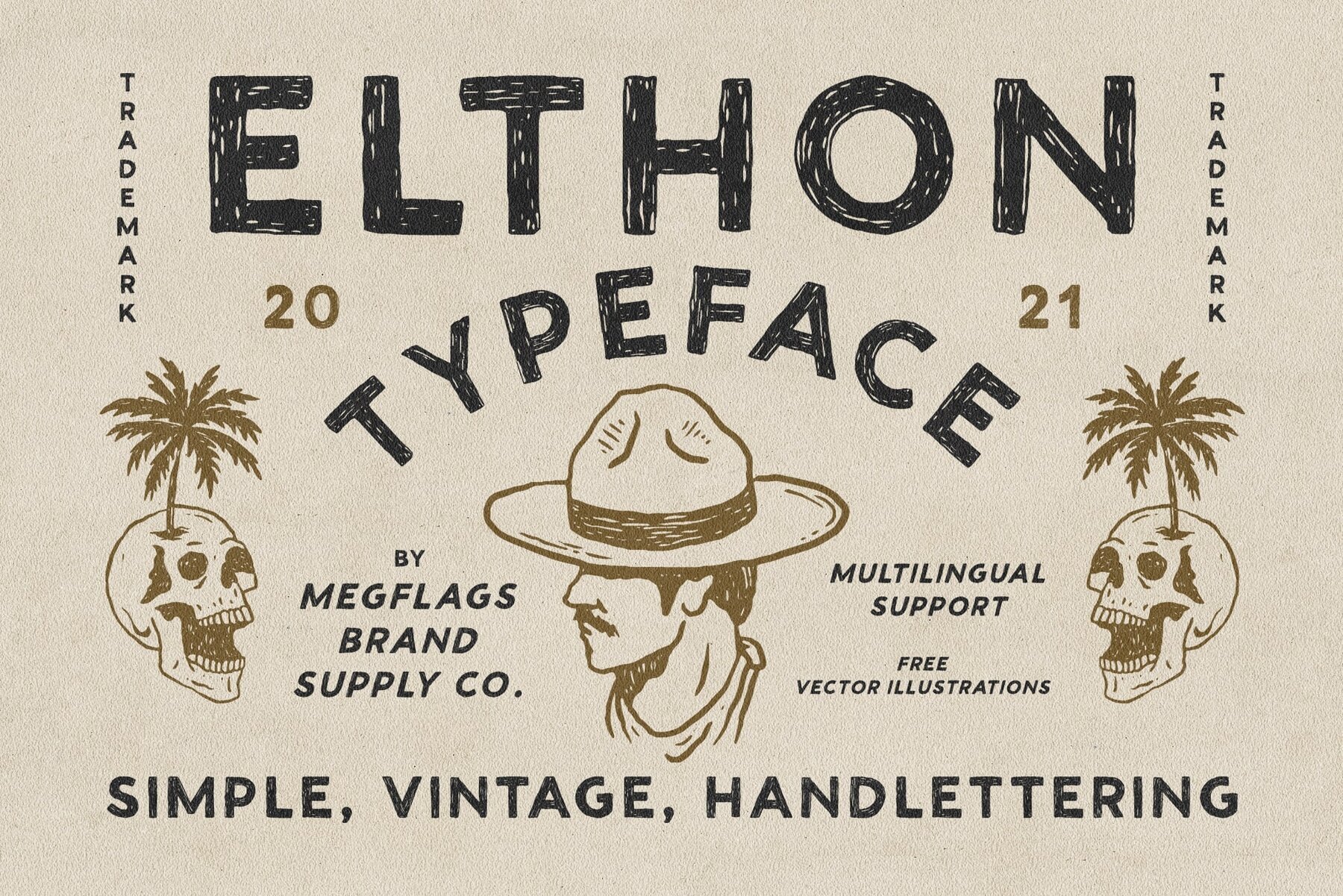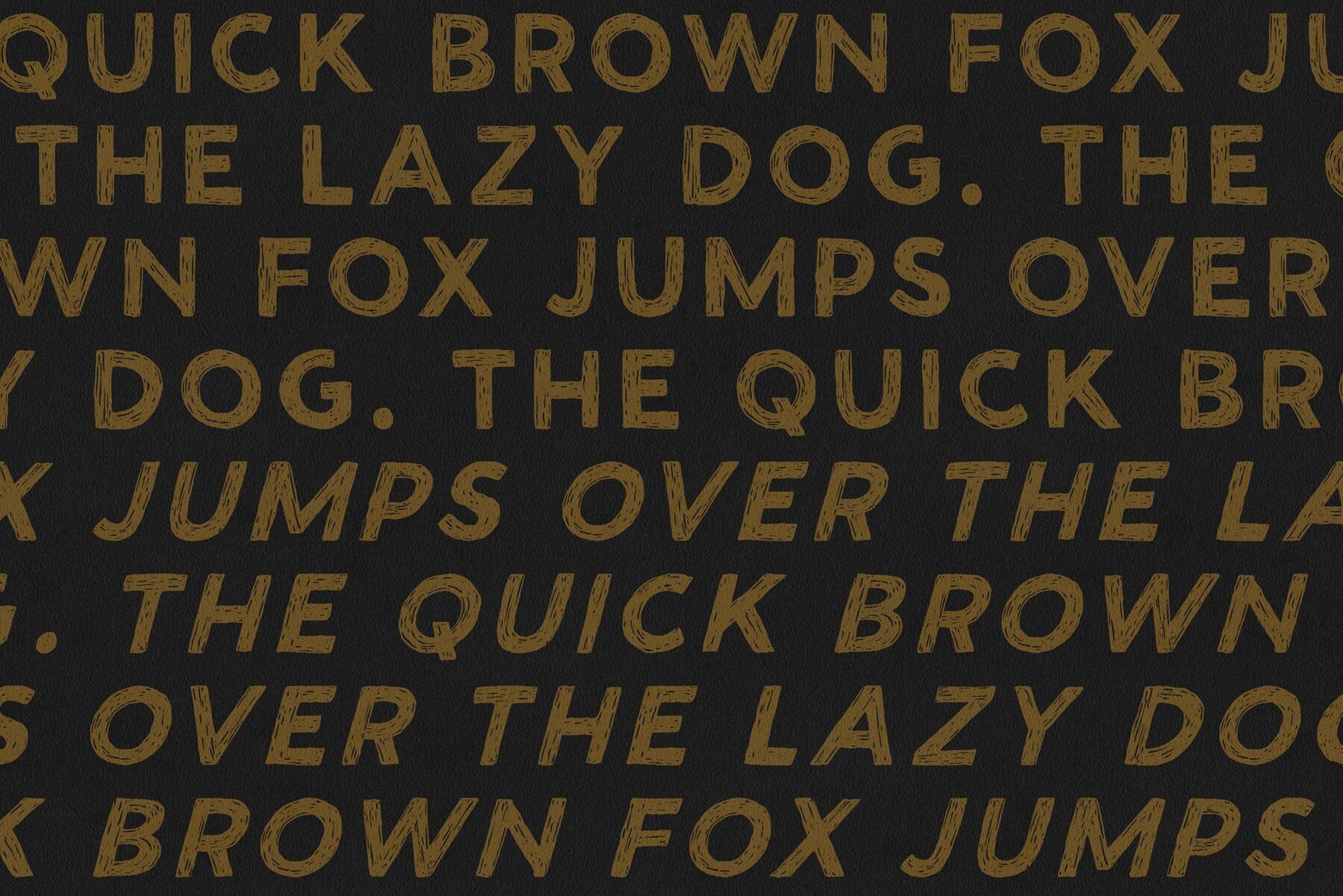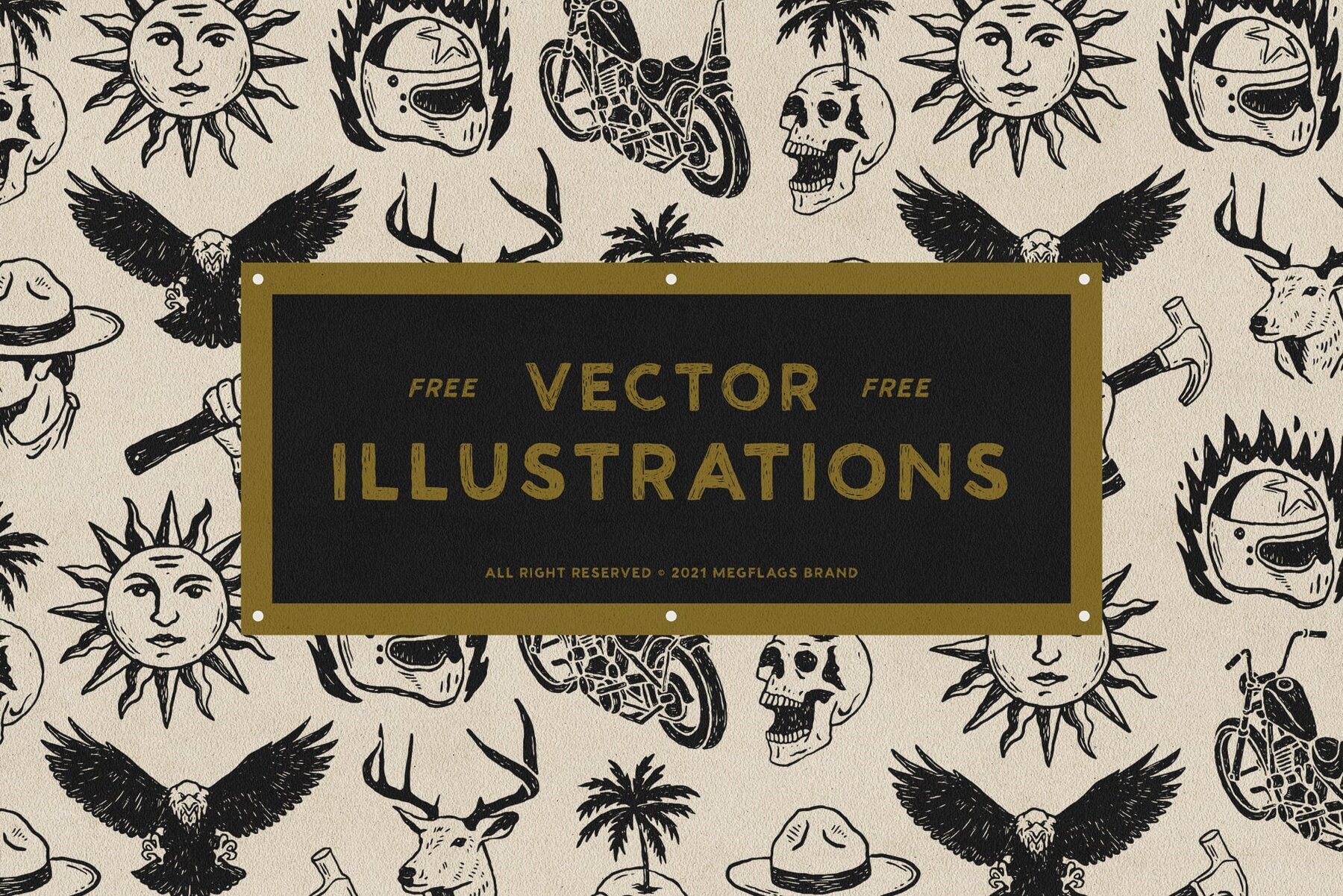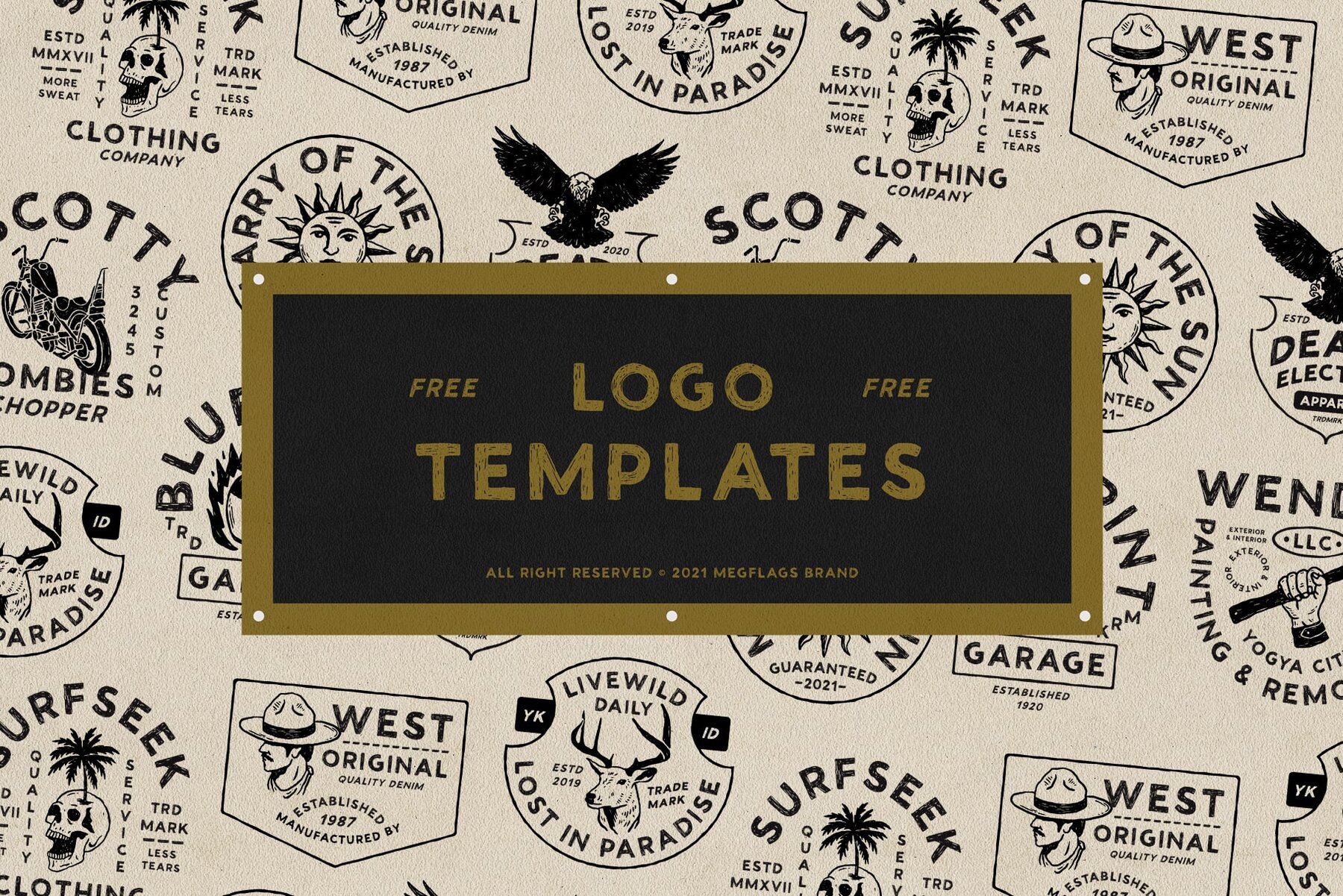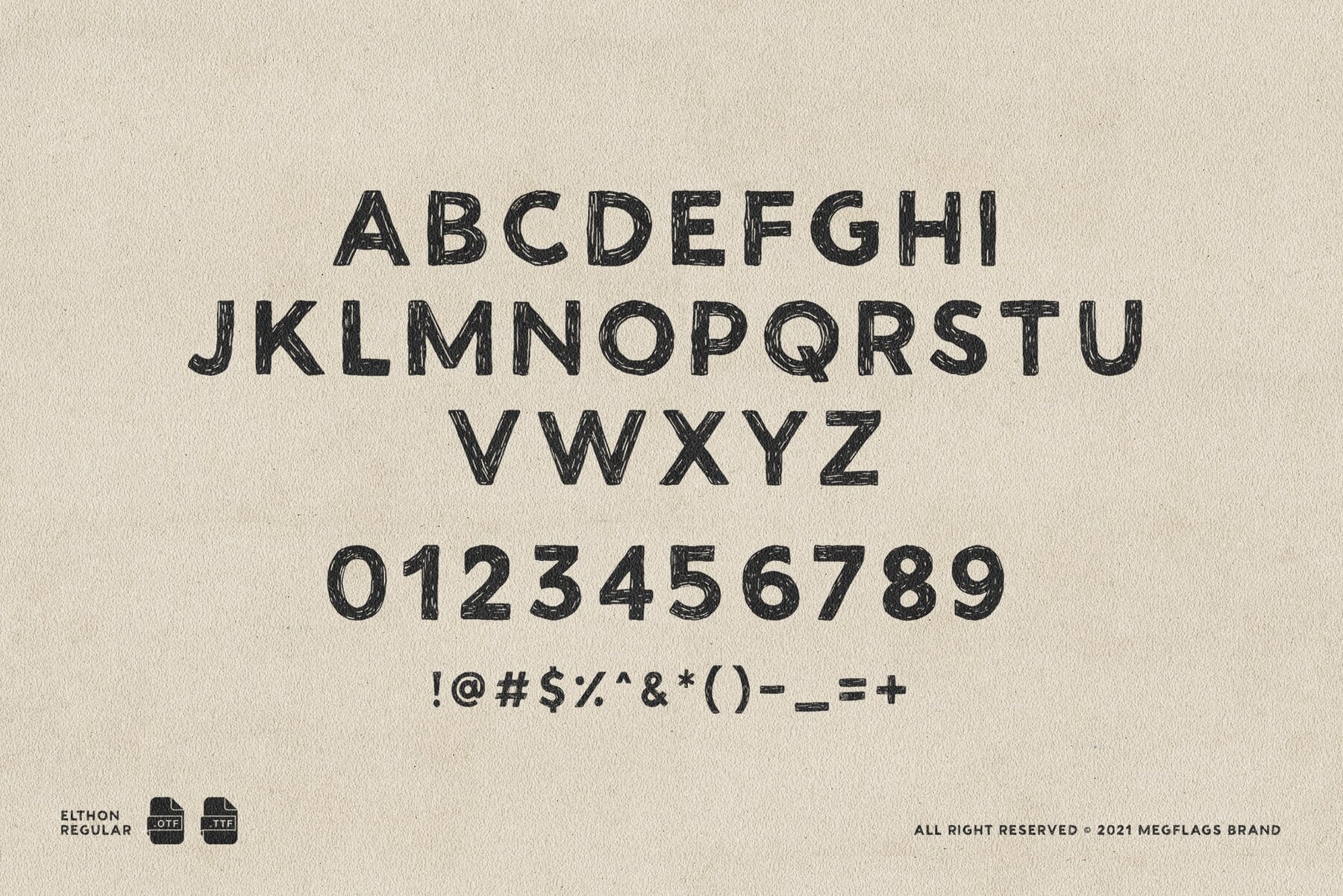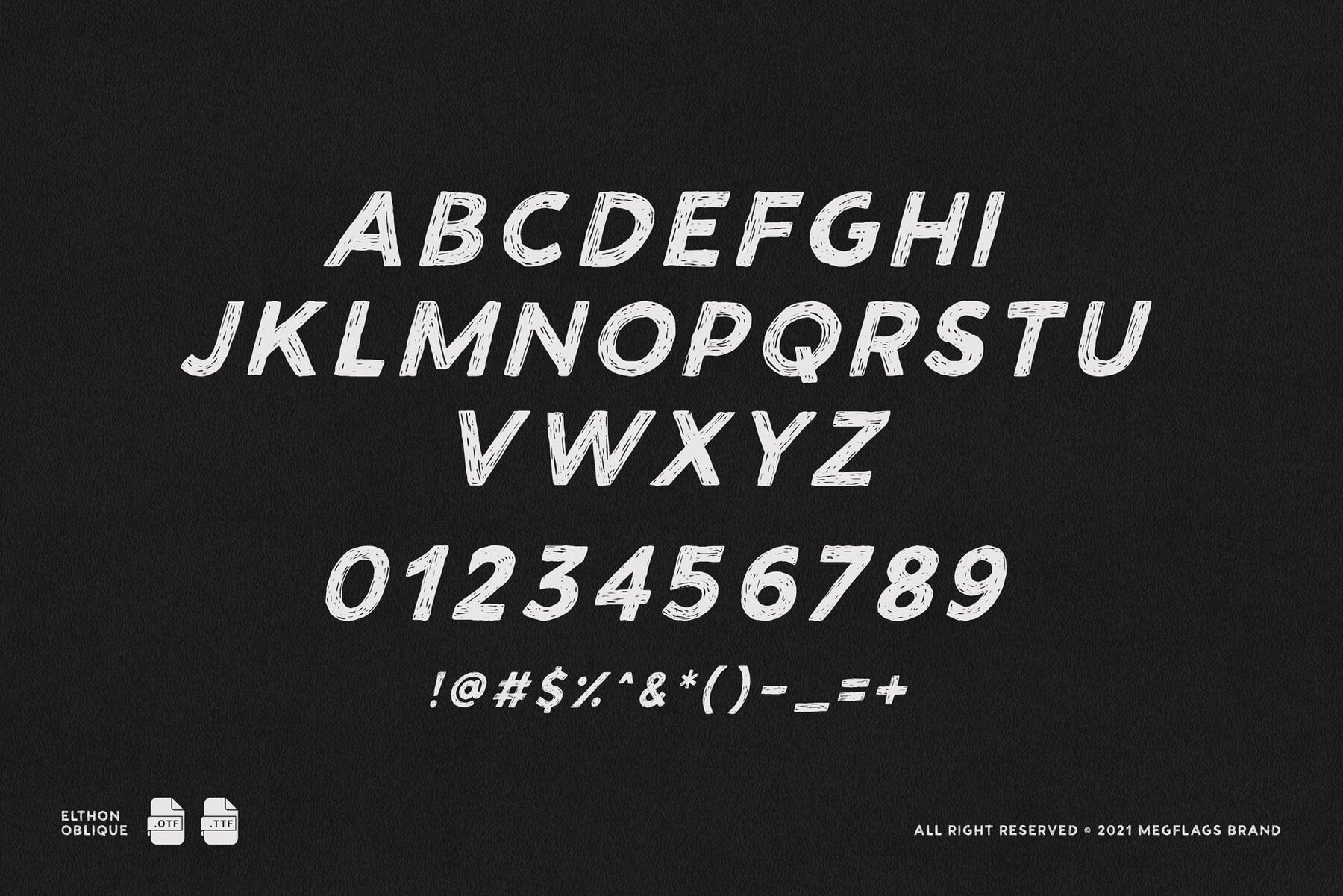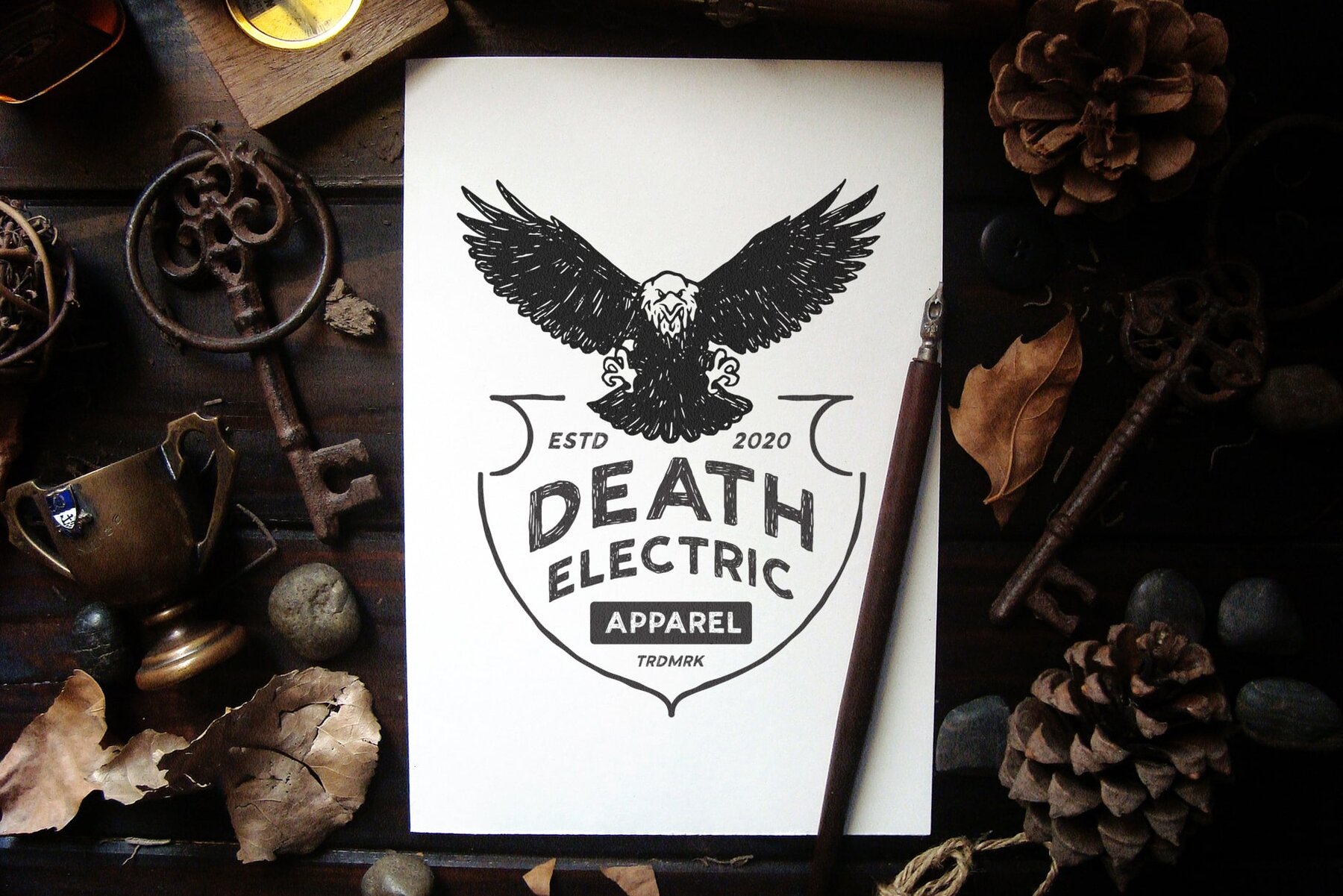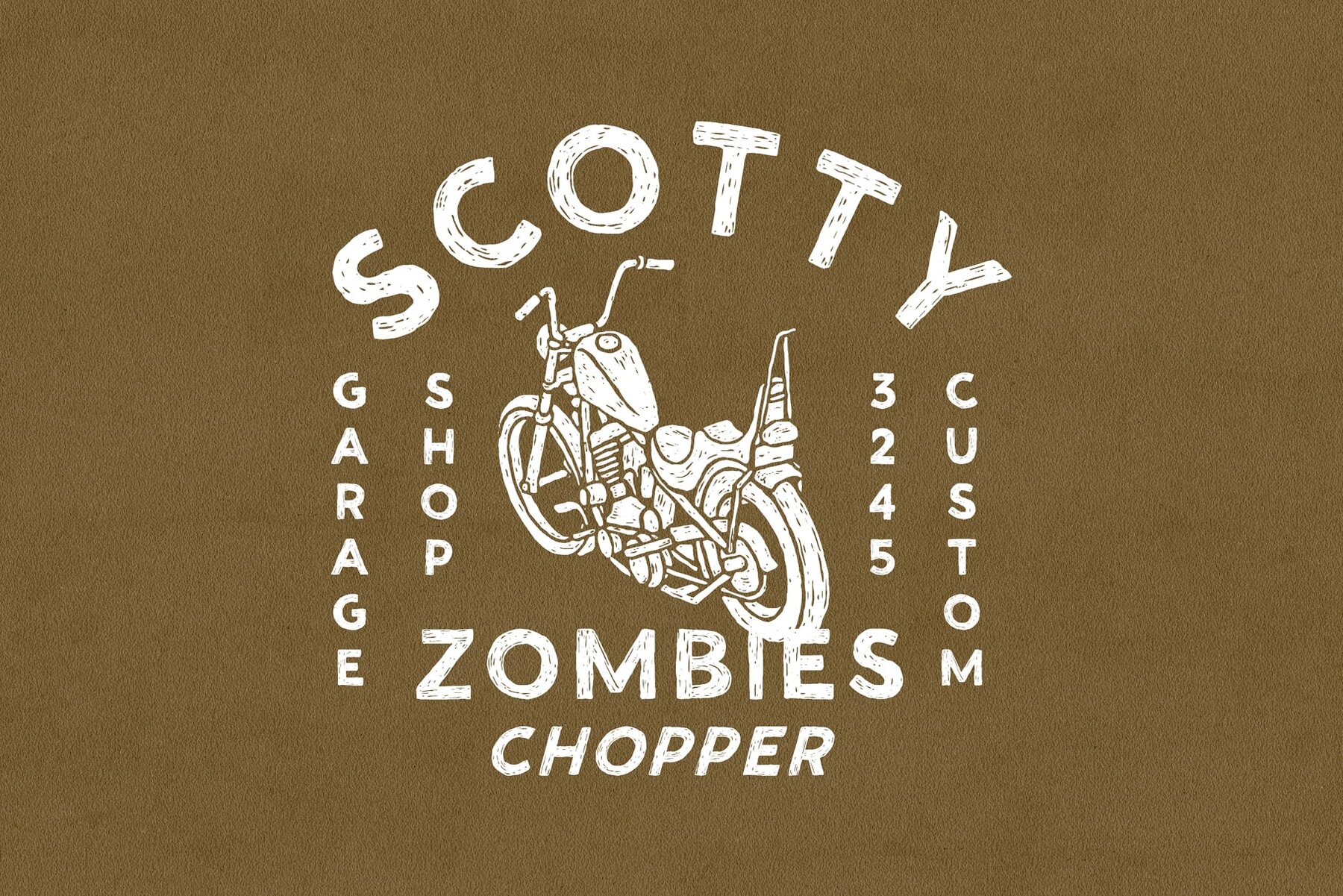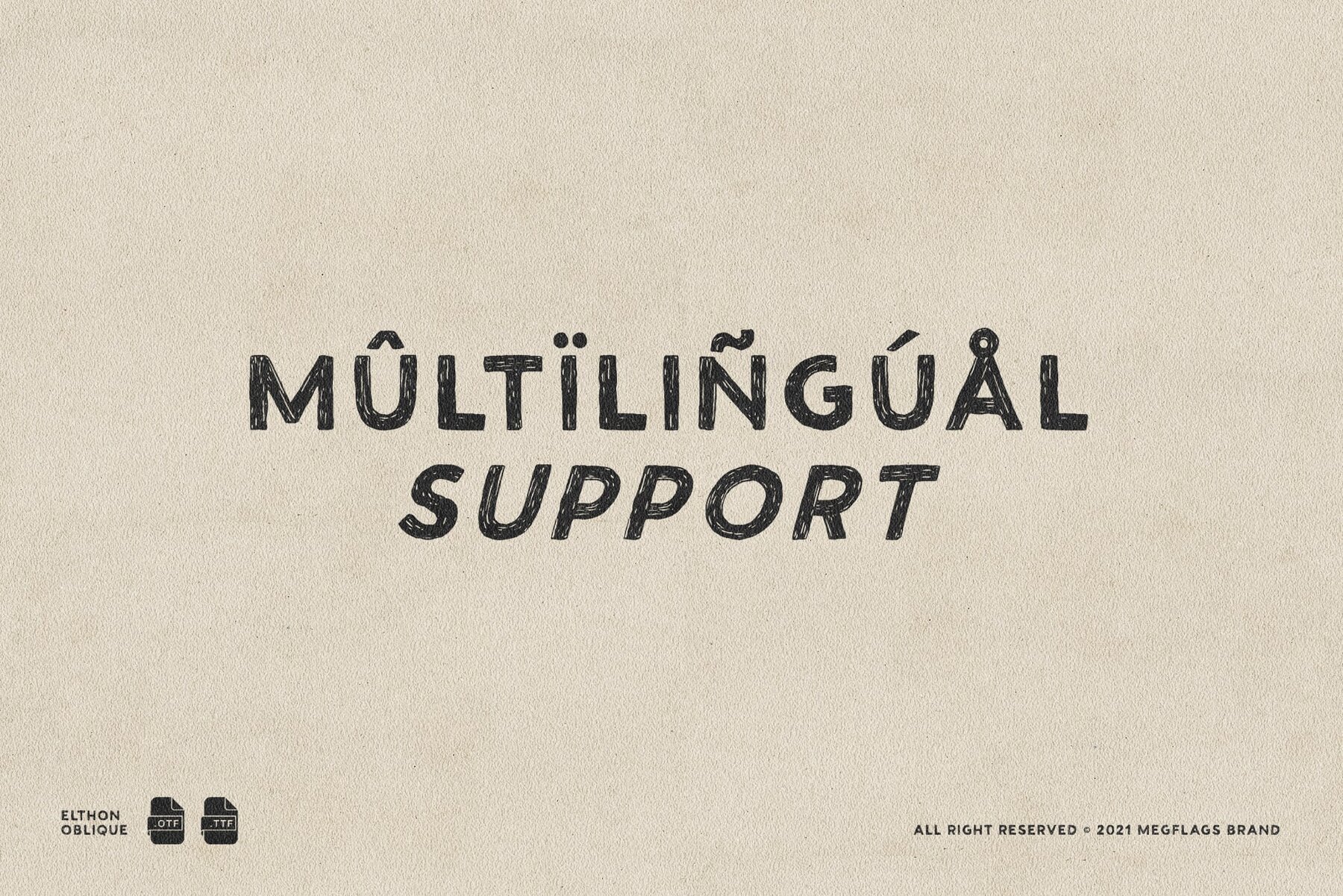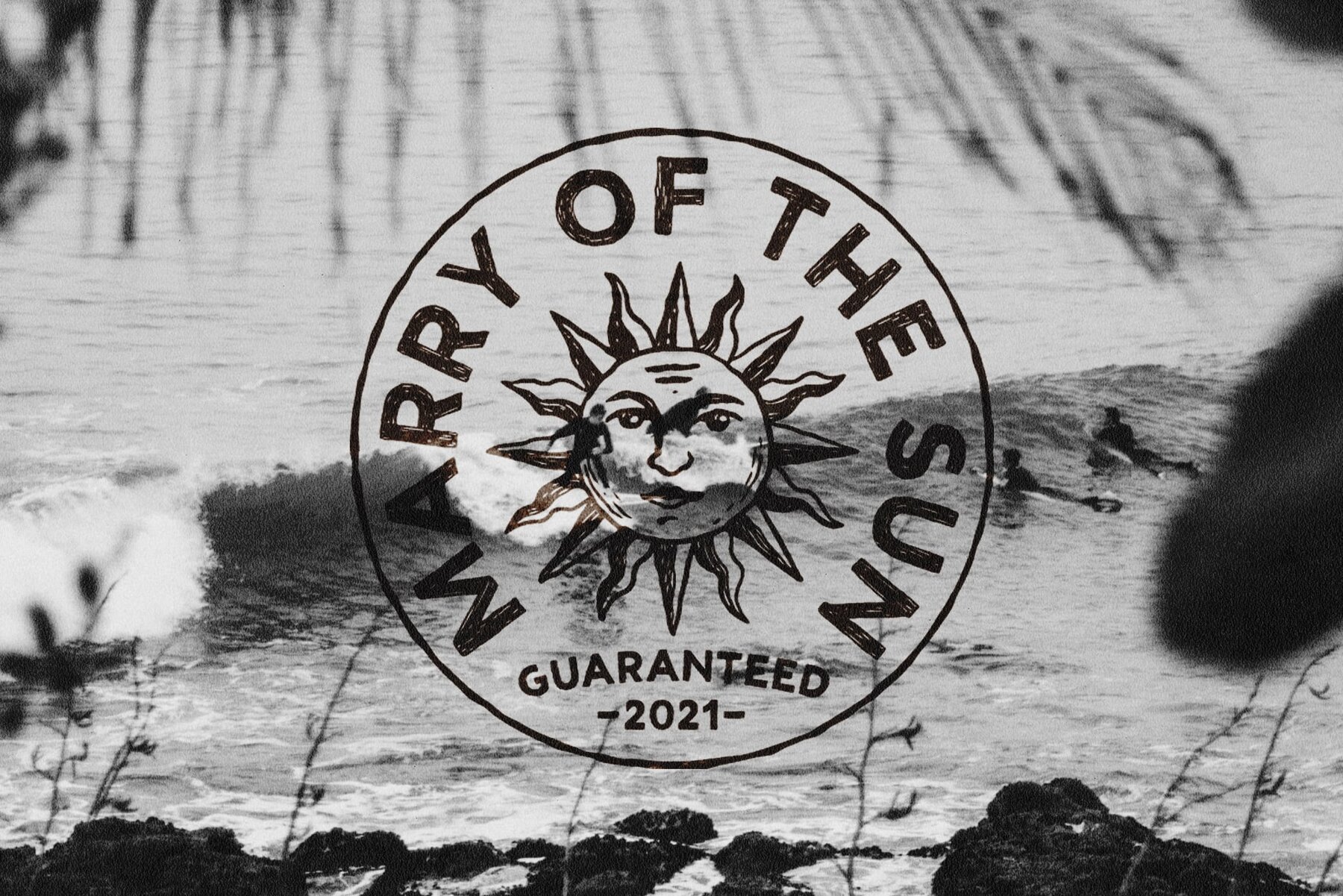
Elthon Font
Elthon is a vintage handdrawn typeface inspired by classic handlettering styles. It is available in both regular and oblique versions, offering versatility for various design needs. Along with the Elthon Typeface, you receive a Free Illustrations Pack and Logo Templates to enhance your projects. Click on the image for more details.Elthon Typeface: A Vintage Handdrawn Font